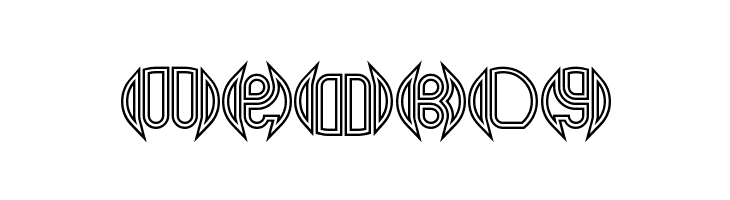
Mordak Stroke Font
- Font: Mordak Stroke
A geometric, abstract font with circular motifs and bold strokes.
A geometric and abstract font with bold, circular shapes and strategic negative space.
A geometric, abstract font with bold, circular outlines and symmetrical design.